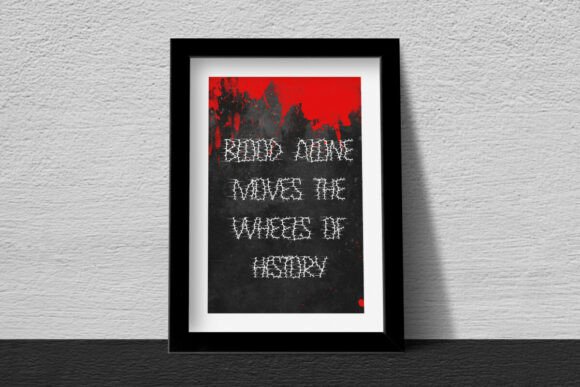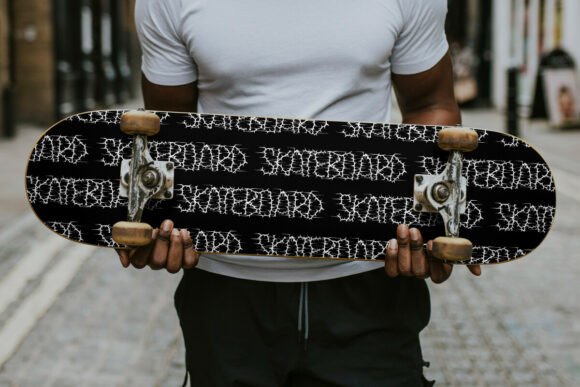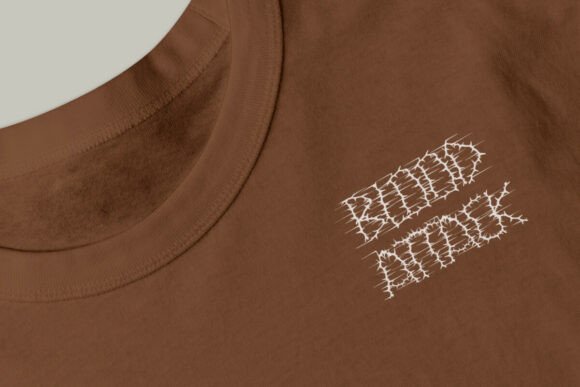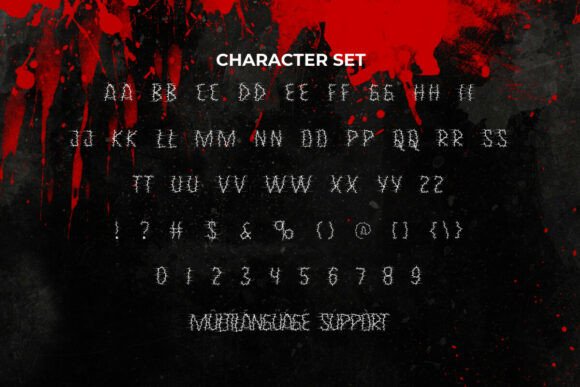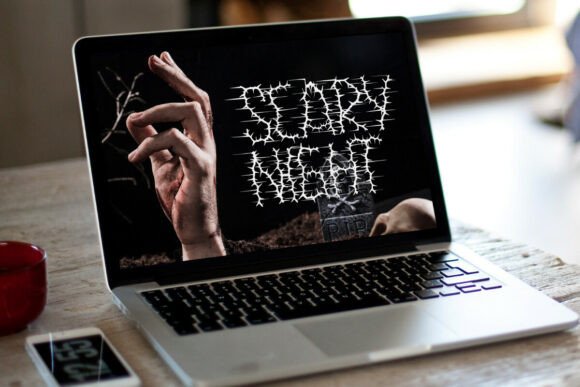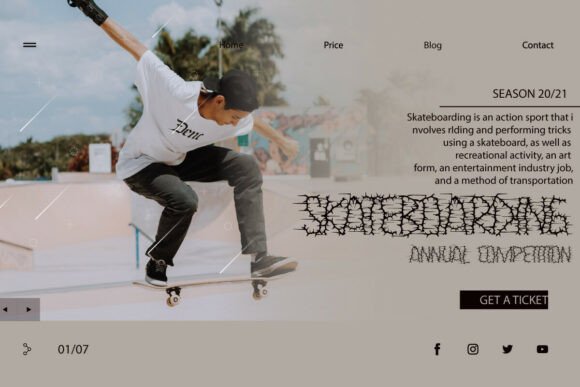
Bloodattack Font: Unleash the Horror with this Heavy Black Metal Font
Are you looking for a font that can add a touch of horror and edginess to your designs? Look no further than the Bloodattack Font, a heavy black metal font with a sharp and scream effect that’s sure to create a tense atmosphere in any design. In this article, we’ll explore the features and uses of the Bloodattack Font, and how it can be used to take your designs to the next level.
What is Bloodattack Font?
Bloodattack Font is a unique and powerful font that’s designed to evoke the feeling of fear and intimidation. With its sharp and scream effect, this font is perfect for creating a sense of tension and drama in any design. The font features a heavy black metal style with thorny branches and sharp edges, giving it a truly menacing look.
Features of Bloodattack Font
- Heavy Black Metal Style: The Bloodattack Font features a heavy black metal style that’s perfect for creating a bold and edgy look.
- Sharp and Scream Effect: The font’s sharp and scream effect adds a touch of horror and fear to any design.
- Thorny Branches: The font features thorny branches that give it a truly menacing look.
- Scary Genre: The Bloodattack Font is designed for use in scary and horror-themed designs, making it perfect for Halloween posters, horror movie titles, and more.
Uses of Bloodattack Font
The Bloodattack Font is a versatile font that can be used in a wide range of designs, including:
- Brochures: Add a touch of horror and edginess to your brochures with the Bloodattack Font.
- Cover Albums: Create a bold and eye-catching cover album with the Bloodattack Font.
- Embroidery Designs on Clothes: Add a touch of horror and style to your embroidery designs with the Bloodattack Font.
- Flyers: Create a bold and attention-grabbing flyer with the Bloodattack Font.
- Headers: Add a touch of horror and edginess to your headers with the Bloodattack Font.
- Logos: Create a bold and eye-catching logo with the Bloodattack Font.
- Packaging Design: Add a touch of horror and style to your packaging design with the Bloodattack Font.
- Halloween Posters: Create a spooky and eye-catching Halloween poster with the Bloodattack Font.
- Product Labels: Add a touch of horror and edginess to your product labels with the Bloodattack Font.
- Quotes: Create a bold and eye-catching quote with the Bloodattack Font.
- Screen Print: Add a touch of horror and style to your screen print designs with the Bloodattack Font.
- Signage: Create a bold and attention-grabbing sign with the Bloodattack Font.
- Stickers: Add a touch of horror and edginess to your stickers with the Bloodattack Font.
- Tags: Create a bold and eye-catching tag with the Bloodattack Font.
- Title: Add a touch of horror and style to your titles with the Bloodattack Font.
- Website Display: Create a bold and eye-catching website display with the Bloodattack Font.
Industries that Can Benefit from Bloodattack Font
The Bloodattack Font is designed for use in a wide range of industries, including:
- Accessories: Add a touch of horror and style to your accessories with the Bloodattack Font.
- Action Sports: Create a bold and eye-catching design for your action sports brand with the Bloodattack Font.
- Artist’s Frames: Add a touch of horror and style to your artist’s frames with the Bloodattack Font.
- Clothing: Create a bold and eye-catching design for your clothing brand with the Bloodattack Font.
- Content Creator: Add a touch of horror and style to your content with the Bloodattack Font.
- Event Organizer: Create a bold and eye-catching design for your event with the Bloodattack Font.
- Film: Add a touch of horror and style to your film titles with the Bloodattack Font.
- Game: Create a bold and eye-catching design for your game with the Bloodattack Font.
- Graphic Design: Add a touch of horror and style to your graphic designs with the Bloodattack Font.
- Handicraft: Create a bold and eye-catching design for your handicraft brand with the Bloodattack Font.
- Horror Cinema: Add a touch of horror and style to your horror cinema titles with the Bloodattack Font.
- Merchandise: Create a bold and eye-catching design for your merchandise with the Bloodattack Font.
- Metal Band Musician: Add a touch of horror and style to your metal band music with the Bloodattack Font.
- Printing: Create a bold and eye-catching design for your printing brand with the Bloodattack Font.
- Publishing: Add a touch of horror and style to your publishing brand with the Bloodattack Font.
- Web Designer: Create a bold and eye-catching design for your web design brand with the Bloodattack Font.
The Bloodattack Font is a powerful and versatile font that’s perfect for adding a touch of horror and edginess to any design. With its heavy black metal style, sharp and scream effect, and thorny branches, this font is sure to create a tense atmosphere in any design. Whether you’re a designer, crafters, or simply looking for a font that can add a touch of horror and style to your projects, the Bloodattack Font is a great choice.